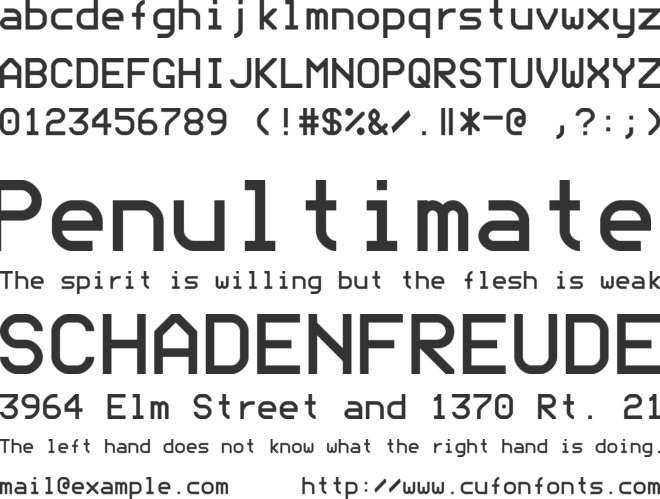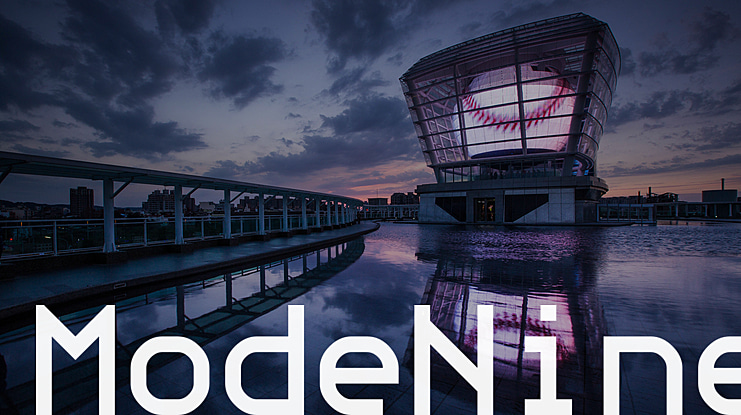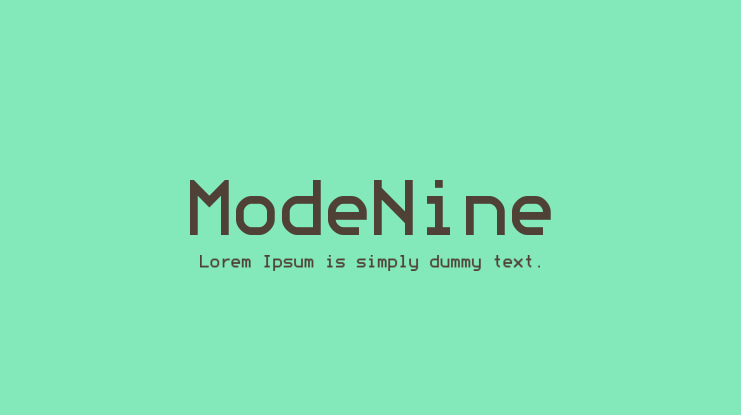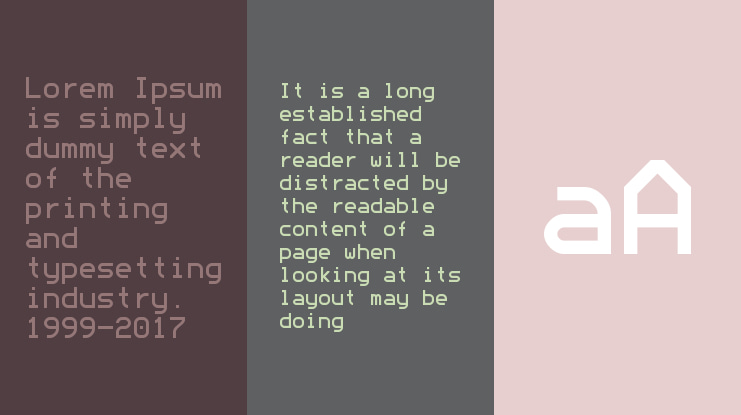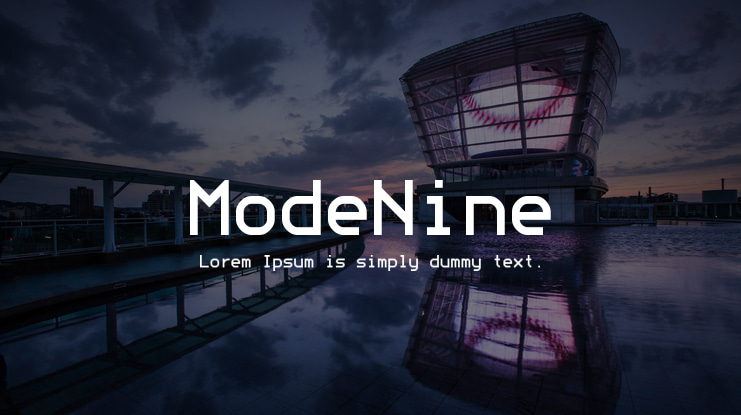
ModeNine Font
One for the retrofuturists. Based on Andrew Bulhak's Mode Seven, in turn based on the screen font of the BBC Micro, smoothed out to conform to the same proportions. ModeNine will not fade your curtains.